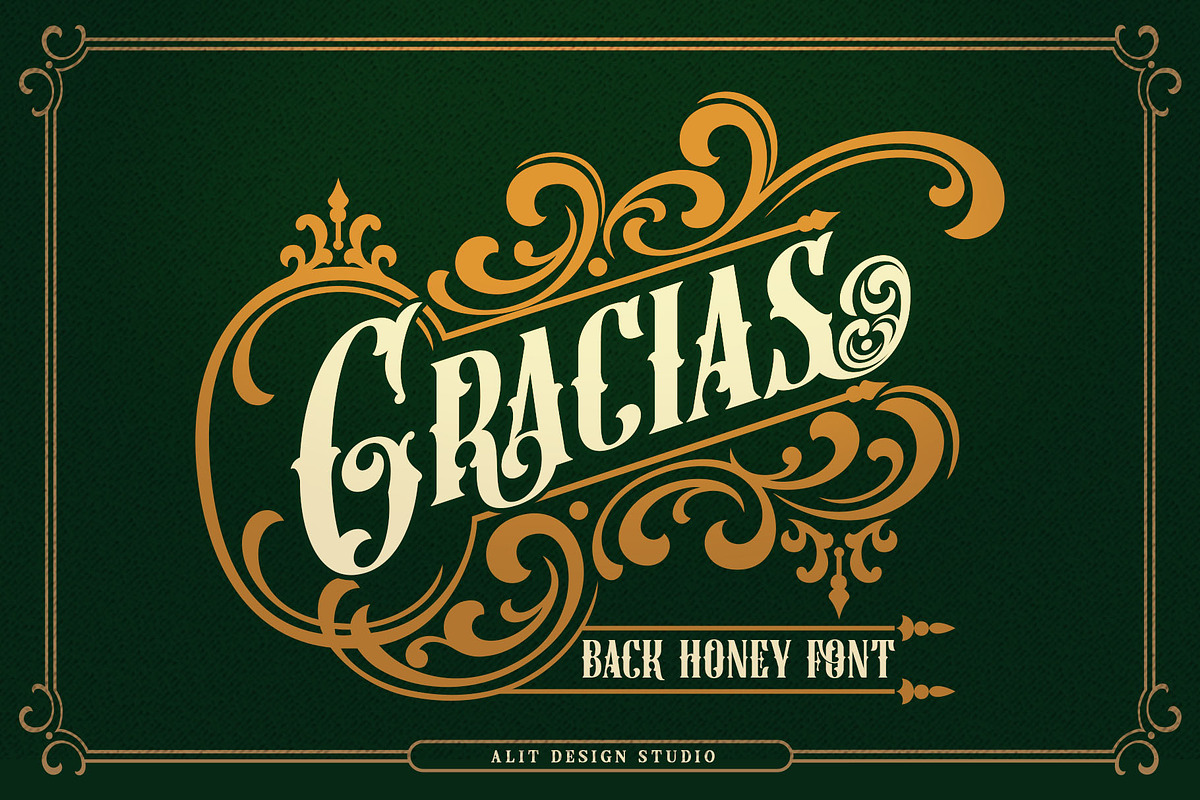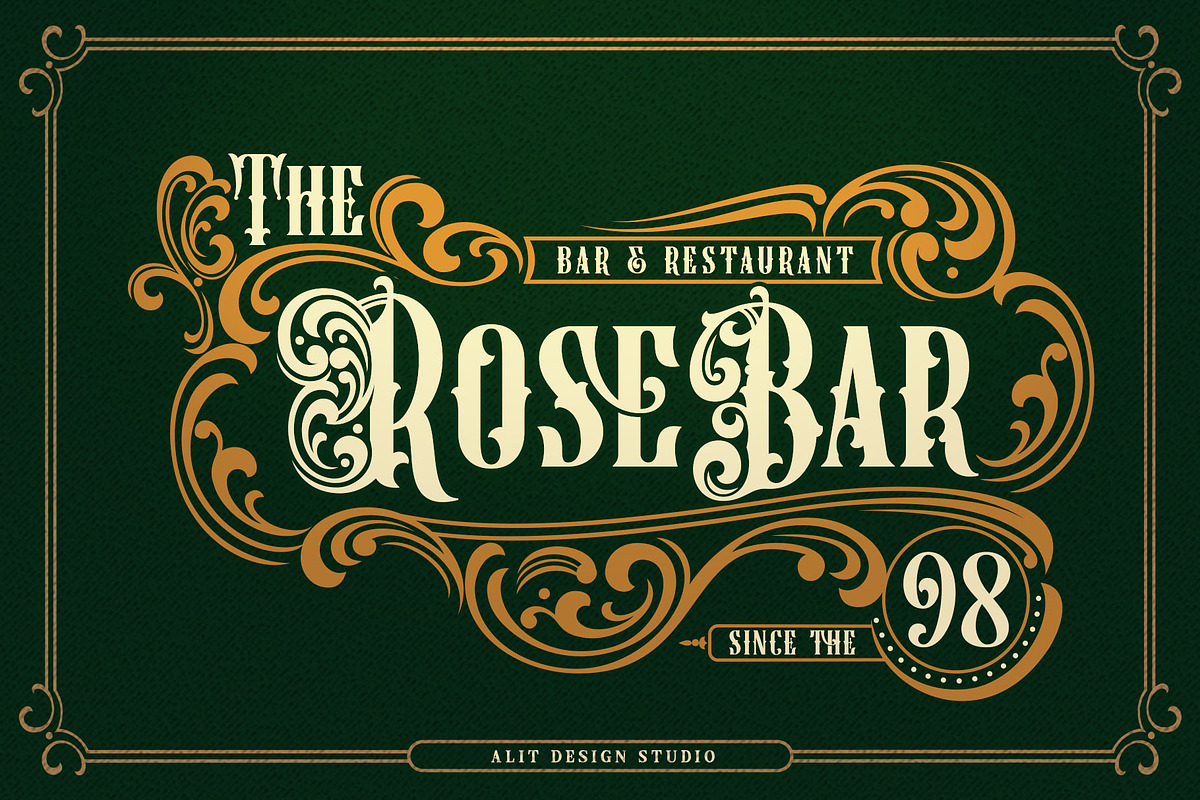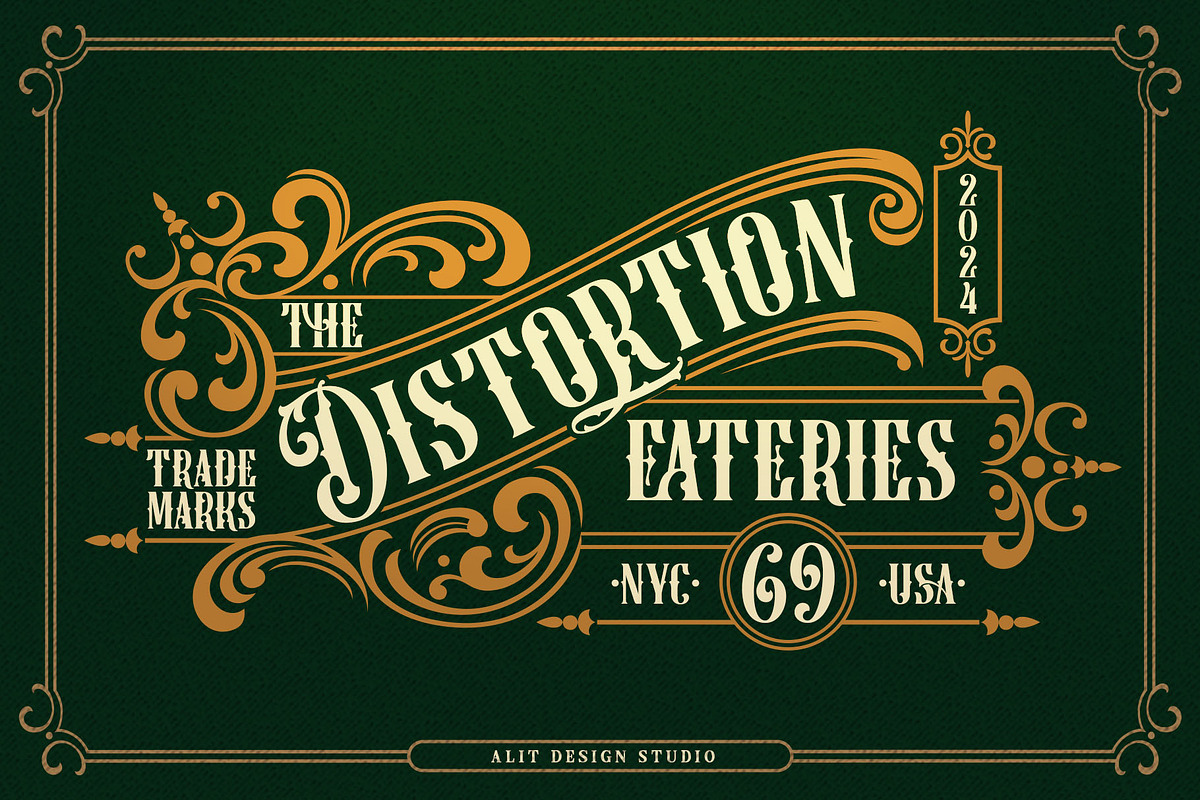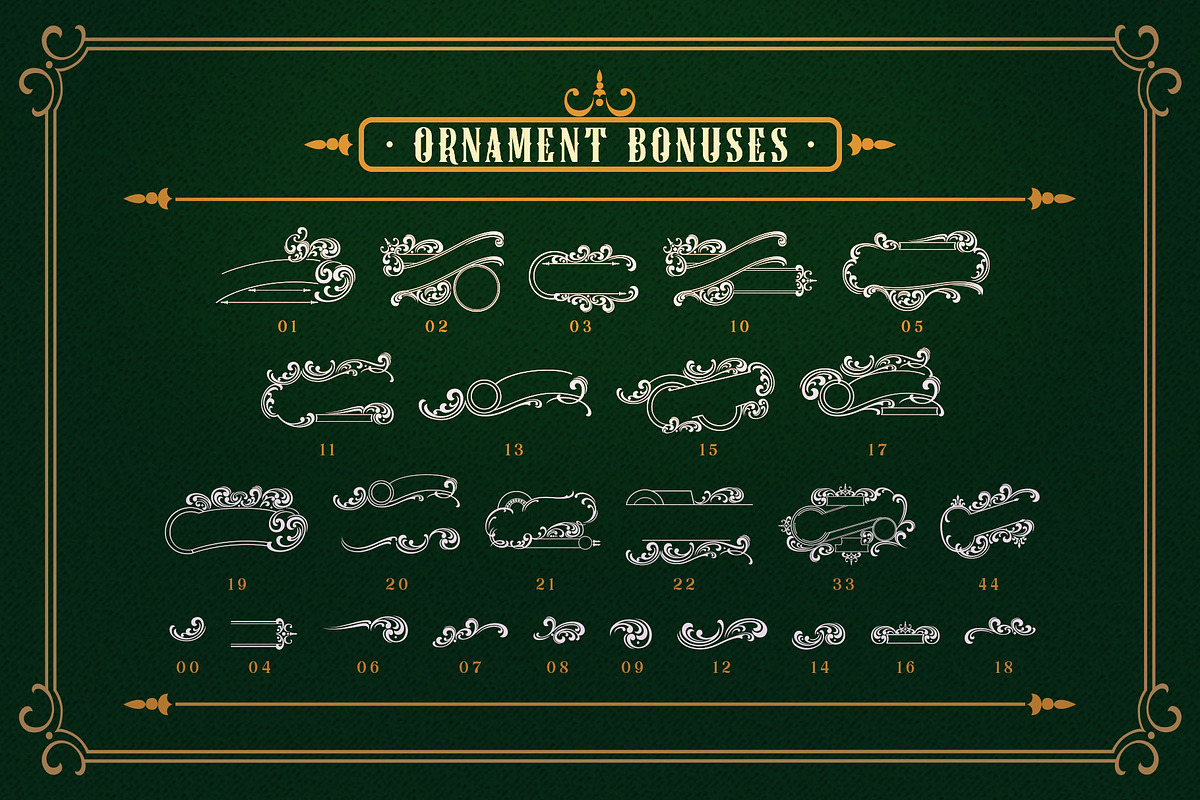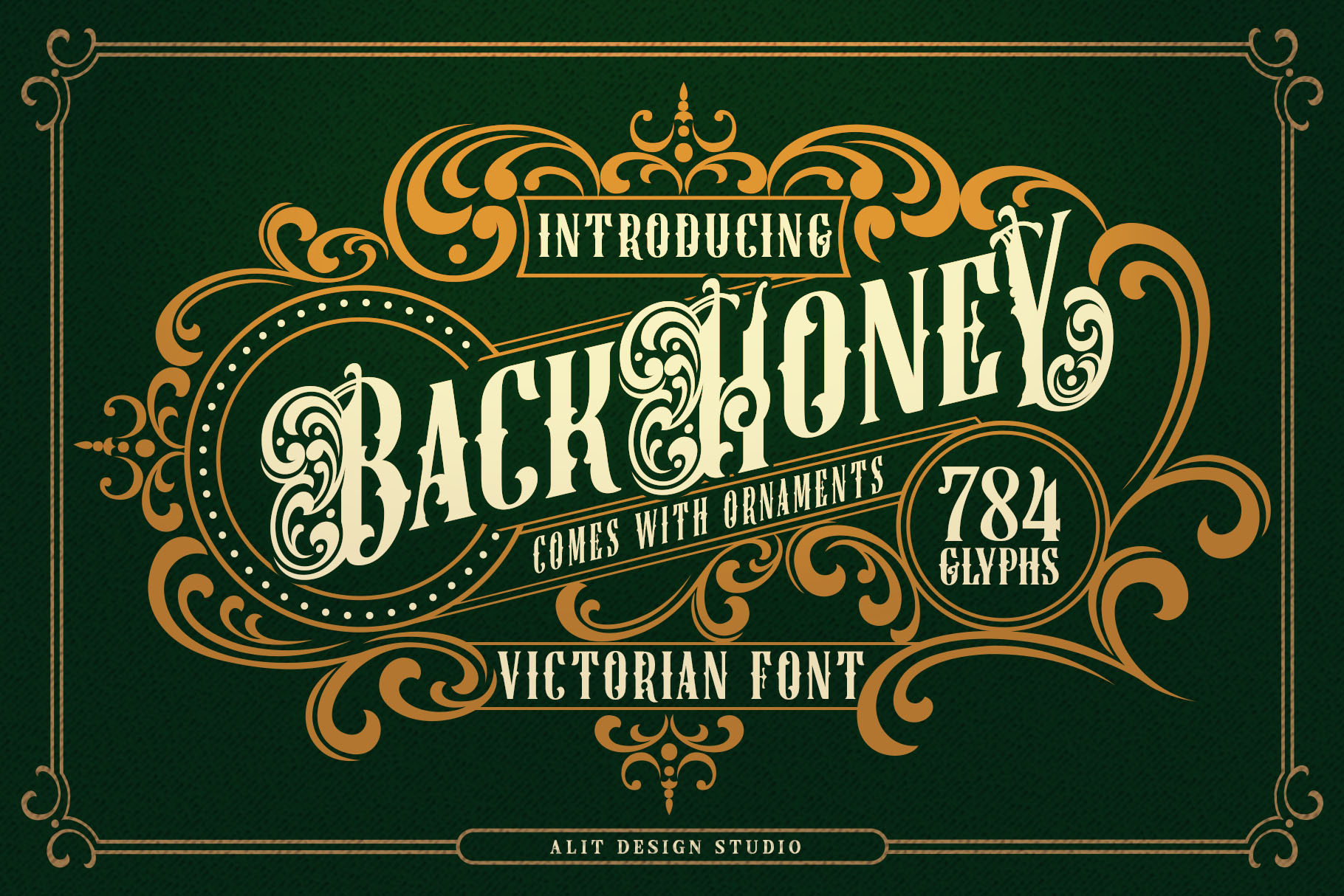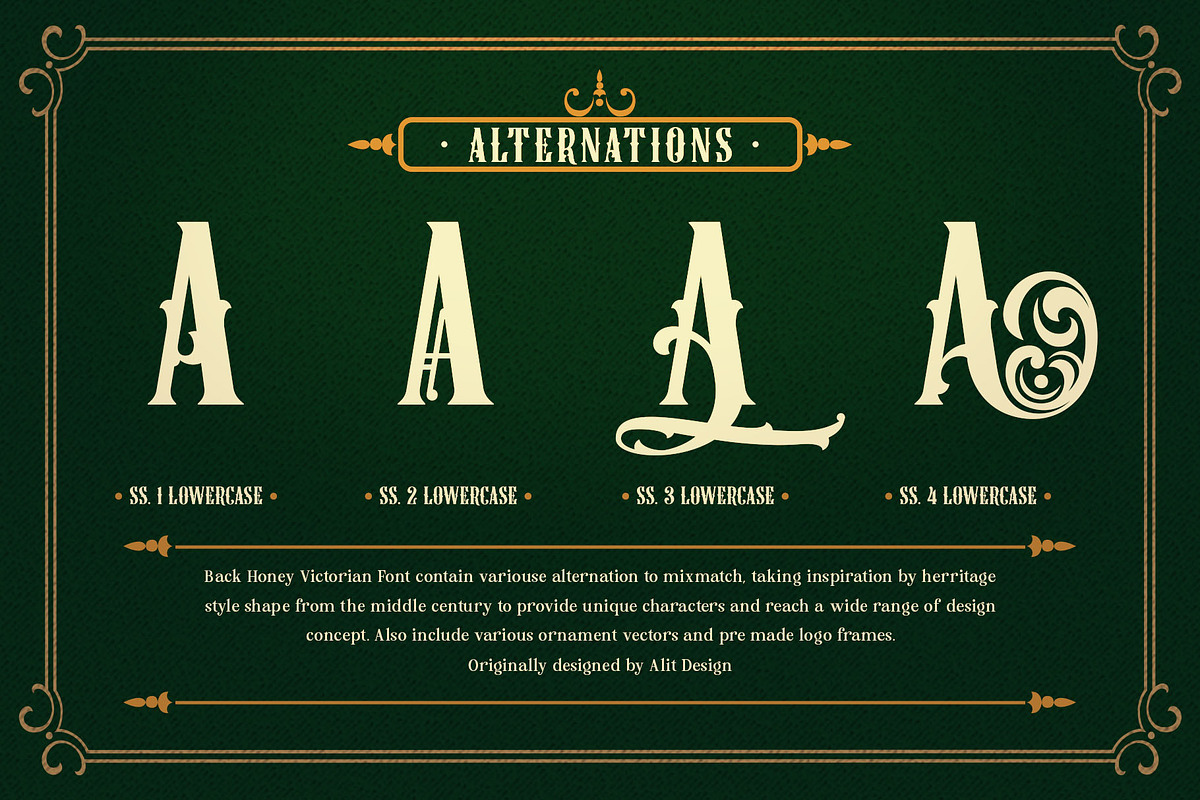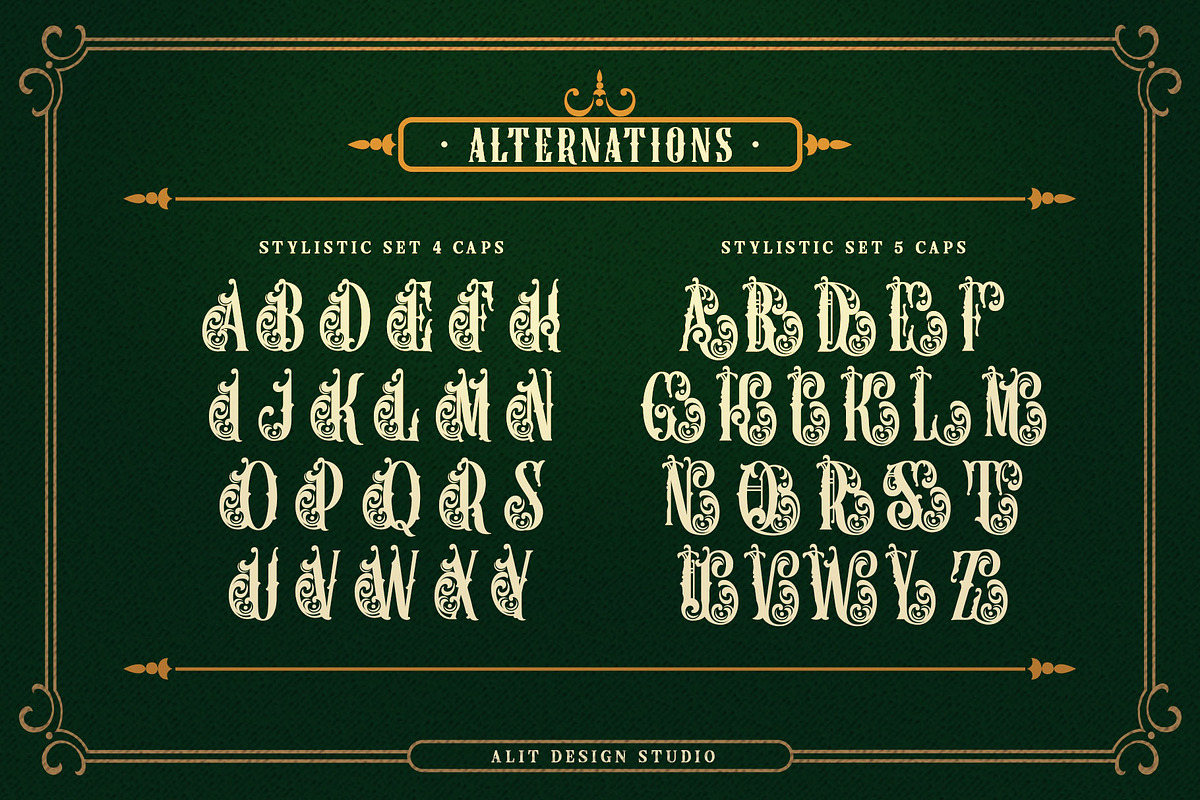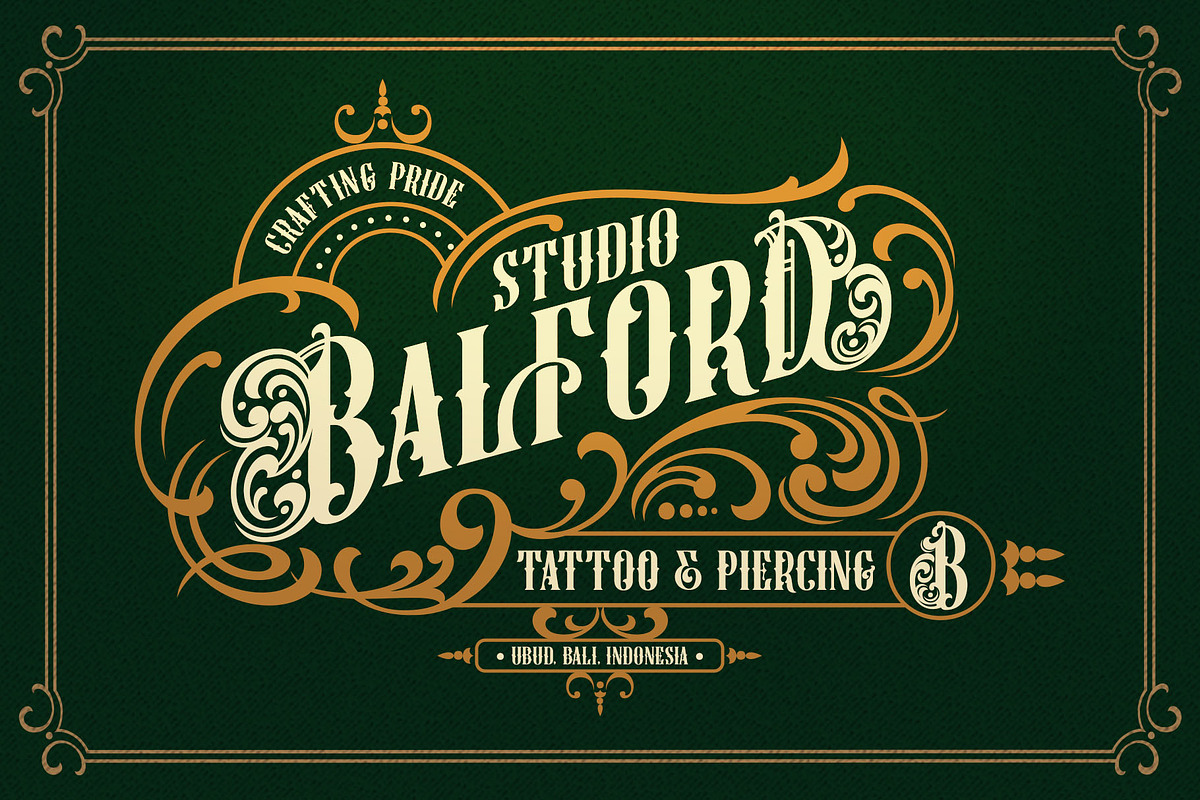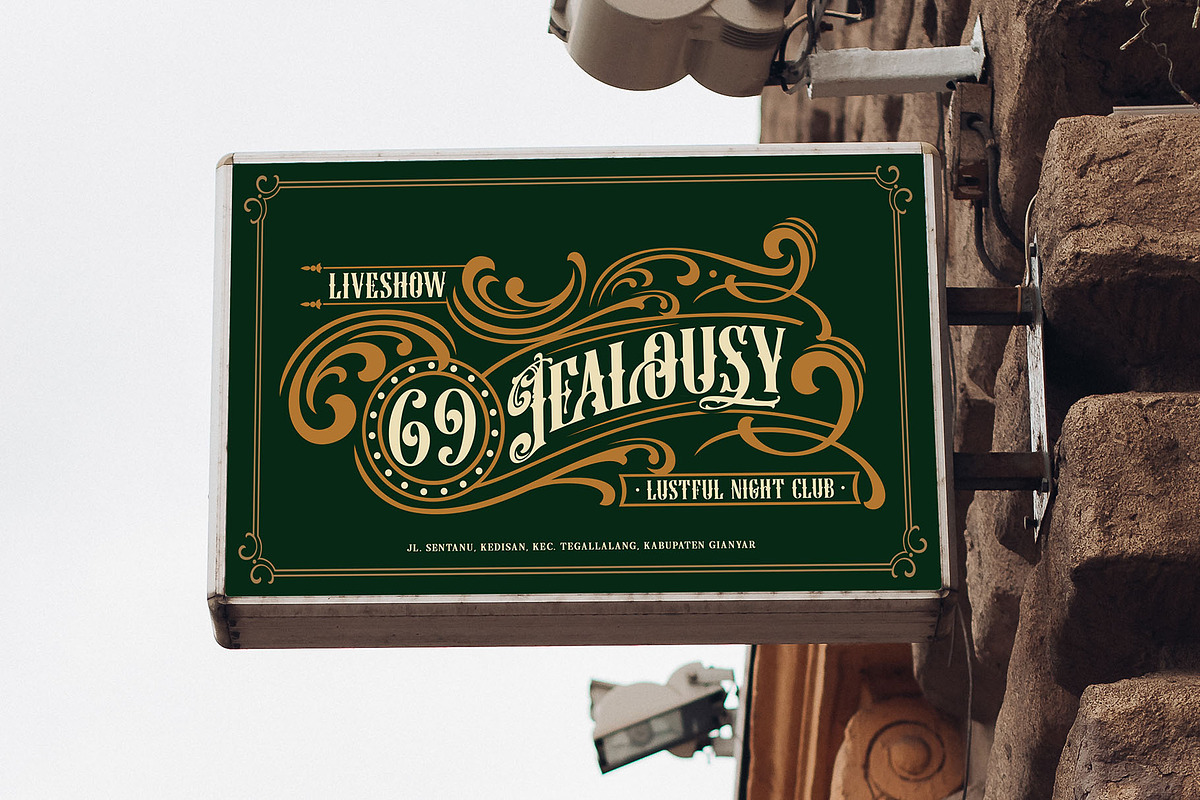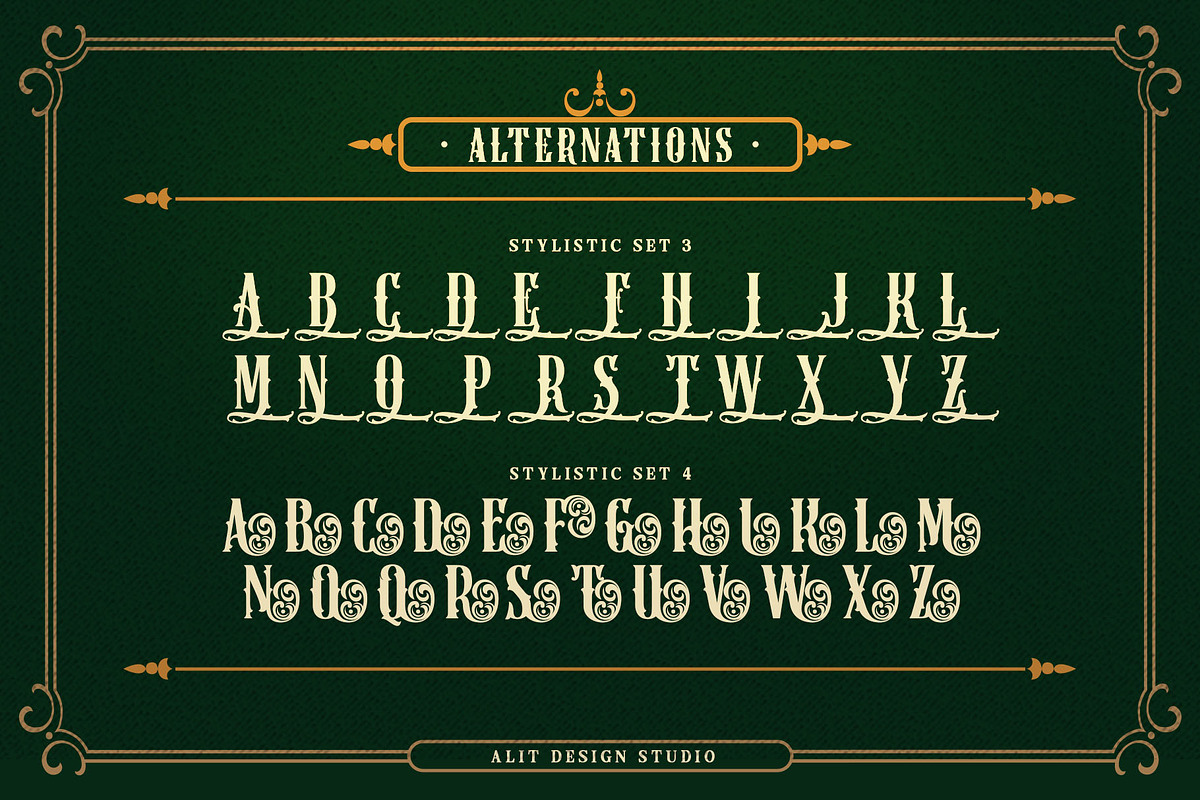
Back Honey Victorian Font
Product Description for Back Honey Victorian Font
Introducing Back Honey Victorian Font, a meticulously crafted typeface that brings the essence of Victorian elegance to modern design. This luxurious serif font combines vintage charm with intricate ornamentation, ideal for projects that call for a touch of classic sophistication.
Back Honey Victorian Font is designed to capture the opulent details of the Victorian era, offering an array of features that allow endless creativity. With 784 beautifully designed characters, each letter exudes the charm of historical type while still providing exceptional legibility and style.
- Extensive Character Set: Featuring 784 characters, including upper and lowercase letters, punctuation, and numerals, this font is fully equipped to handle diverse creative needs.
- Many Alternatives: Offering a variety of alternative characters, allowing you to customize the look and feel of your text with a range of stylistic options.
- Elegant Ligatures: Special ligatures add seamless connections between letters, creating smooth and sophisticated word formations.
- Decorative Swashes: Unique swash options let you add expressive flourishes to letters, perfect for logos, invitations, and decorative headlines.
- Multilingual Support: Designed with international creators in mind, Black Honey Victorian Font supports multiple languages, making it a versatile choice for global projects.
- Wedding Invitations
- Branding and Packaging
- Editorial Designs
- Book Covers
- Signage and Posters
- Any project that requires a vintage, timeless touch
Embrace the elegance of the past with Back Honey Victorian Font, where historical artistry meets modern functionality.